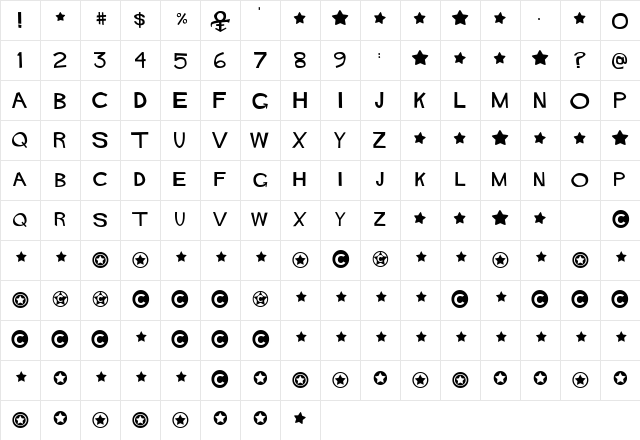
Hitchcock Regular Free Font
Hitchcock Regular
Design Context for Hitchcock
Hitchcock is a composed and adaptable typeface that performs quietly and consistently across a wide range of design contexts.